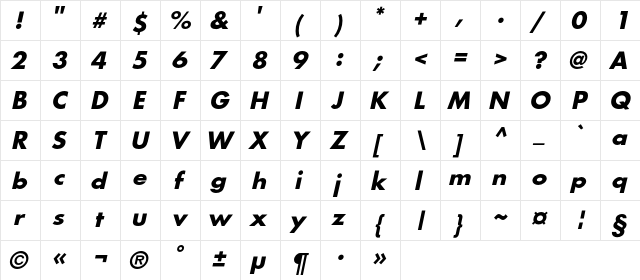
FortuneC Bold Italic Font Preview
FortuneC Bold Italic
Design Context for FortuneC Typeface
FortuneC is a composed and adaptable typeface that performs quietly and consistently across a wide range of design contexts. The dynamic lean of this cut emphasises speed and emphasis in any layout. The heavy weight commands attention and anchors typographic hierarchies.
Pro Tip: Use FortuneC for emphasis, pull quotes, and subheadings where its slanted energy can add rhythm to the layout.